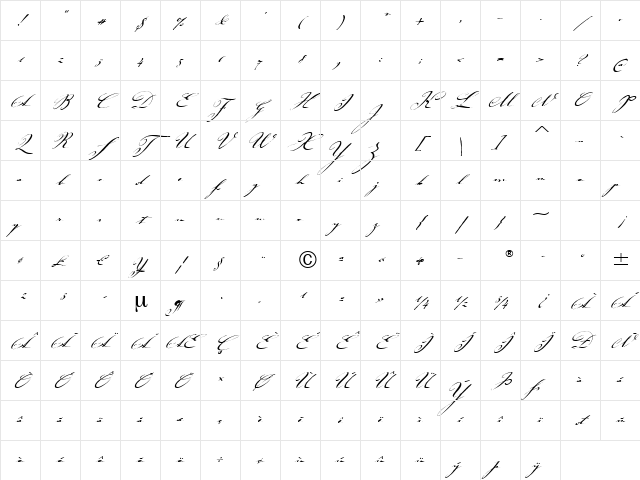
Complete JohannSparklingITC TT Regular glyph index. Displaying only characters natively supported by JohannSparklingITC TT Regular font.
JohannSparklingITC TT is a composed and adaptable typeface that performs quietly and consistently across a wide range of design contexts.